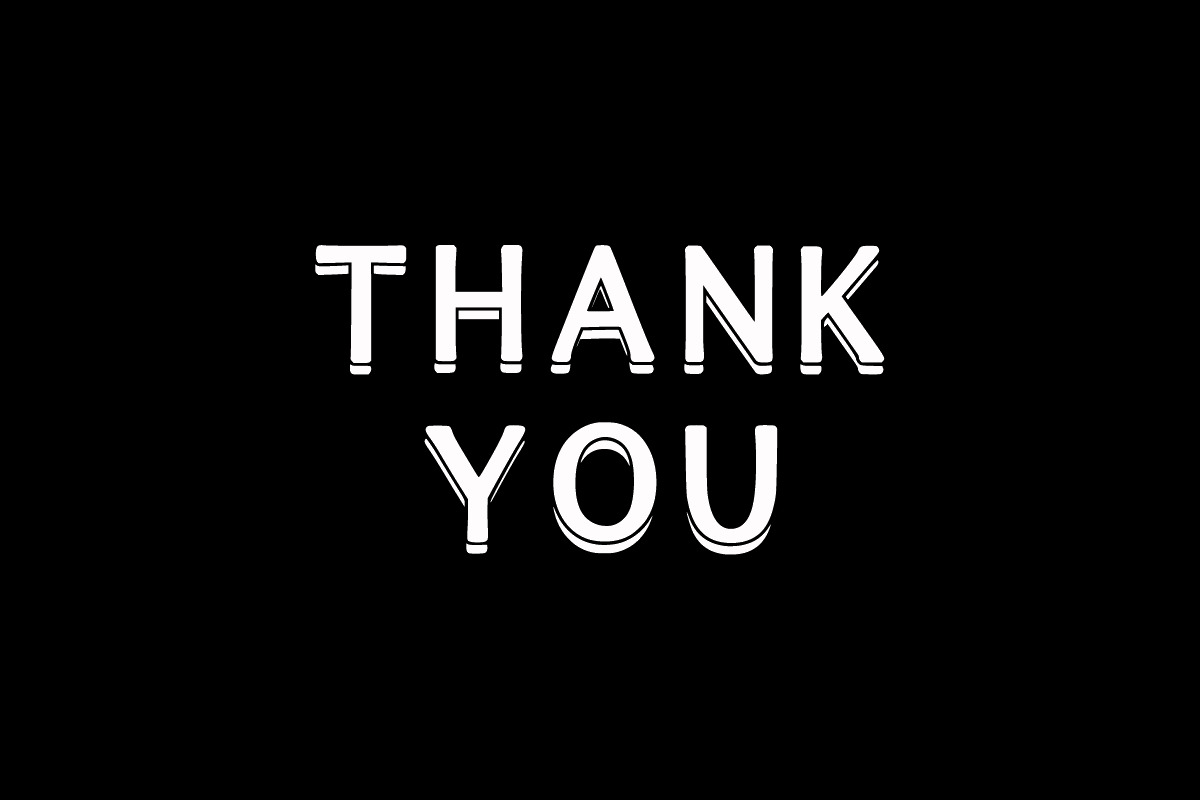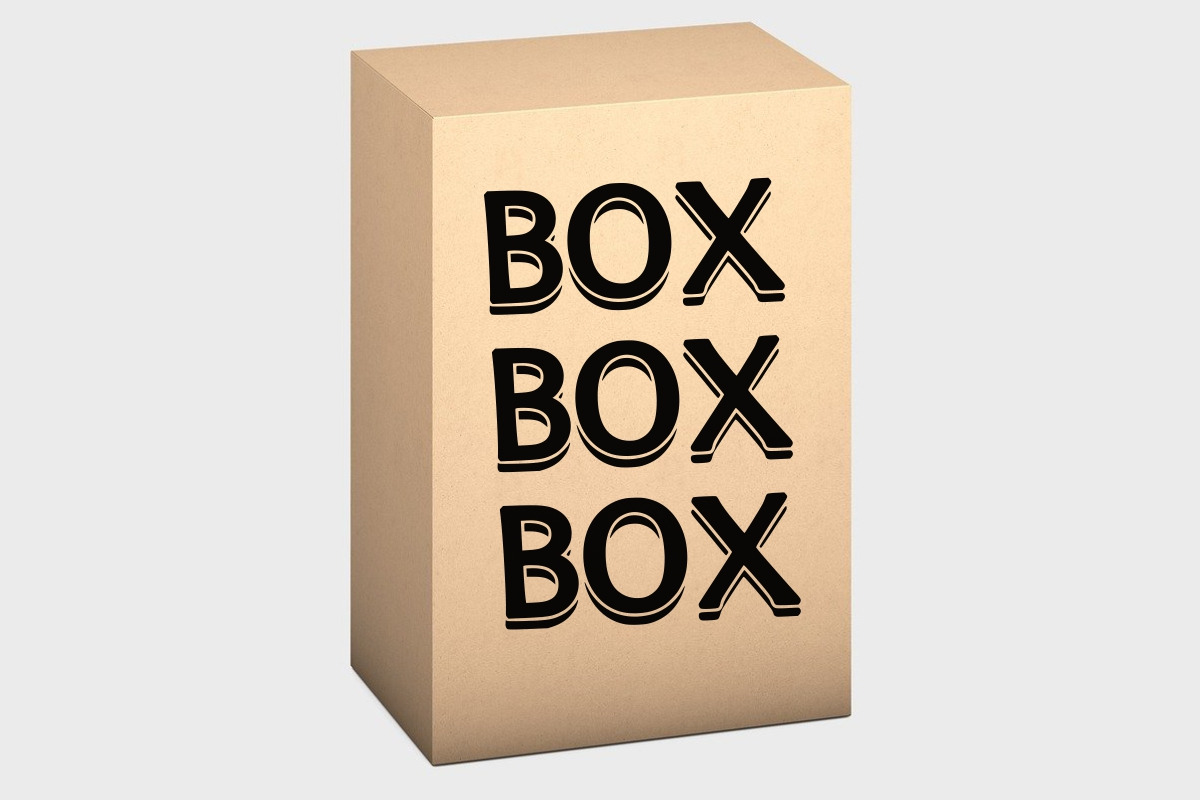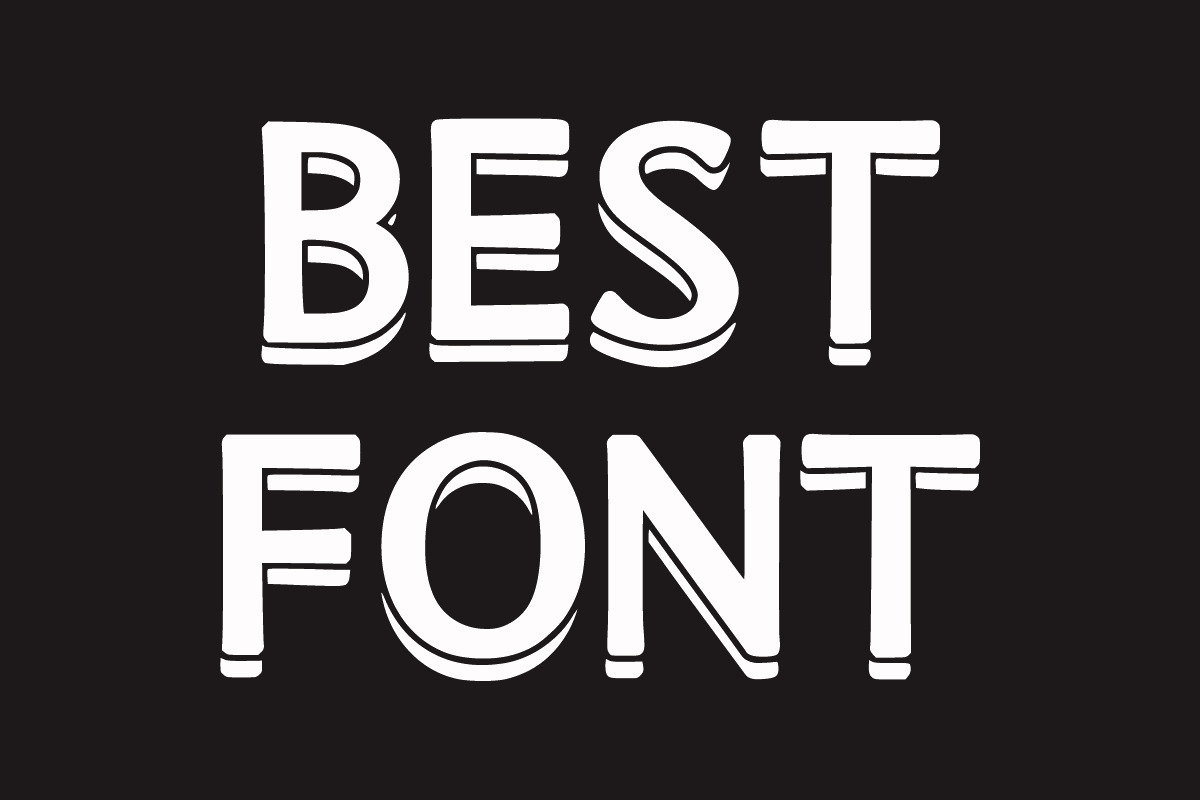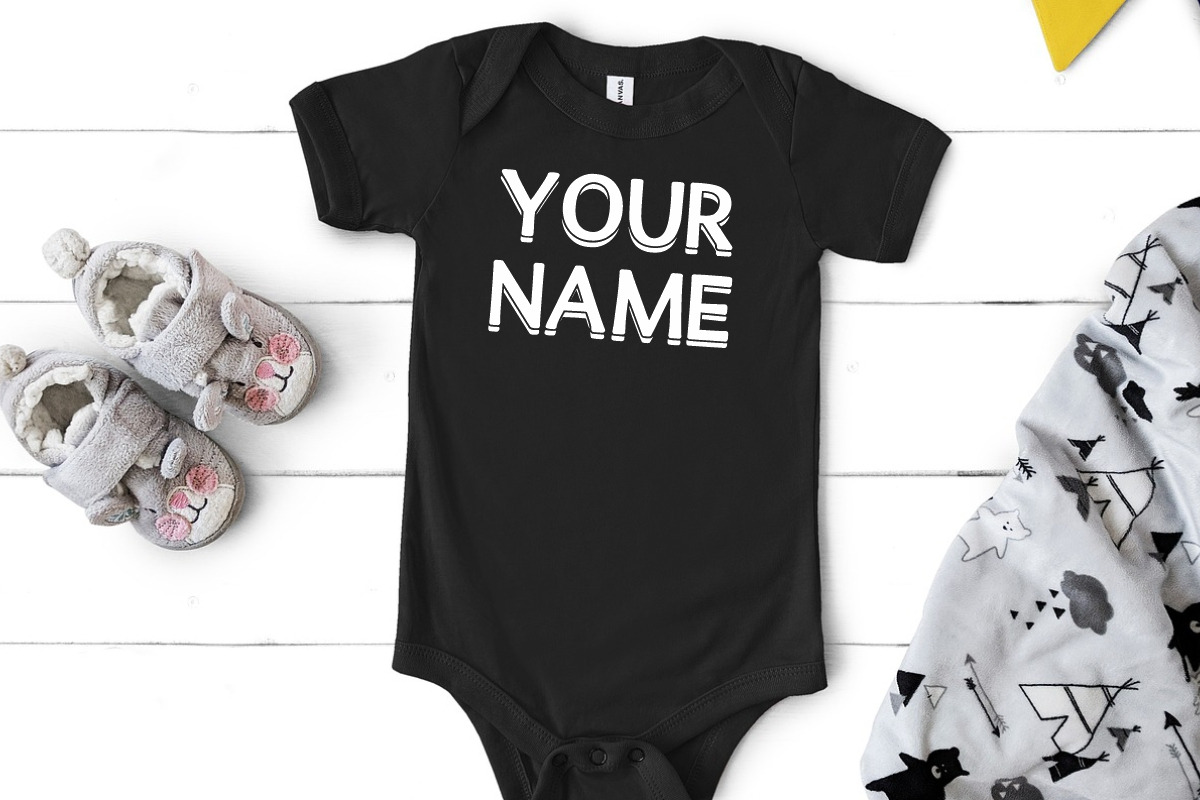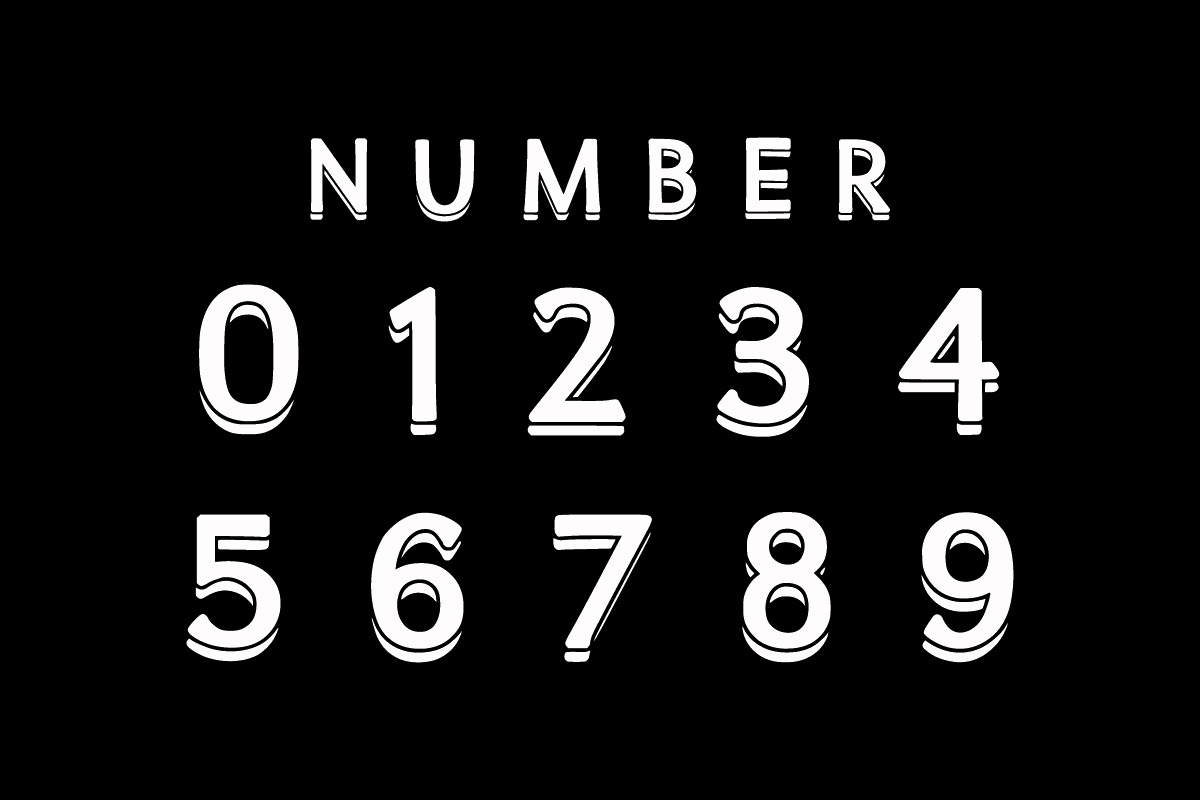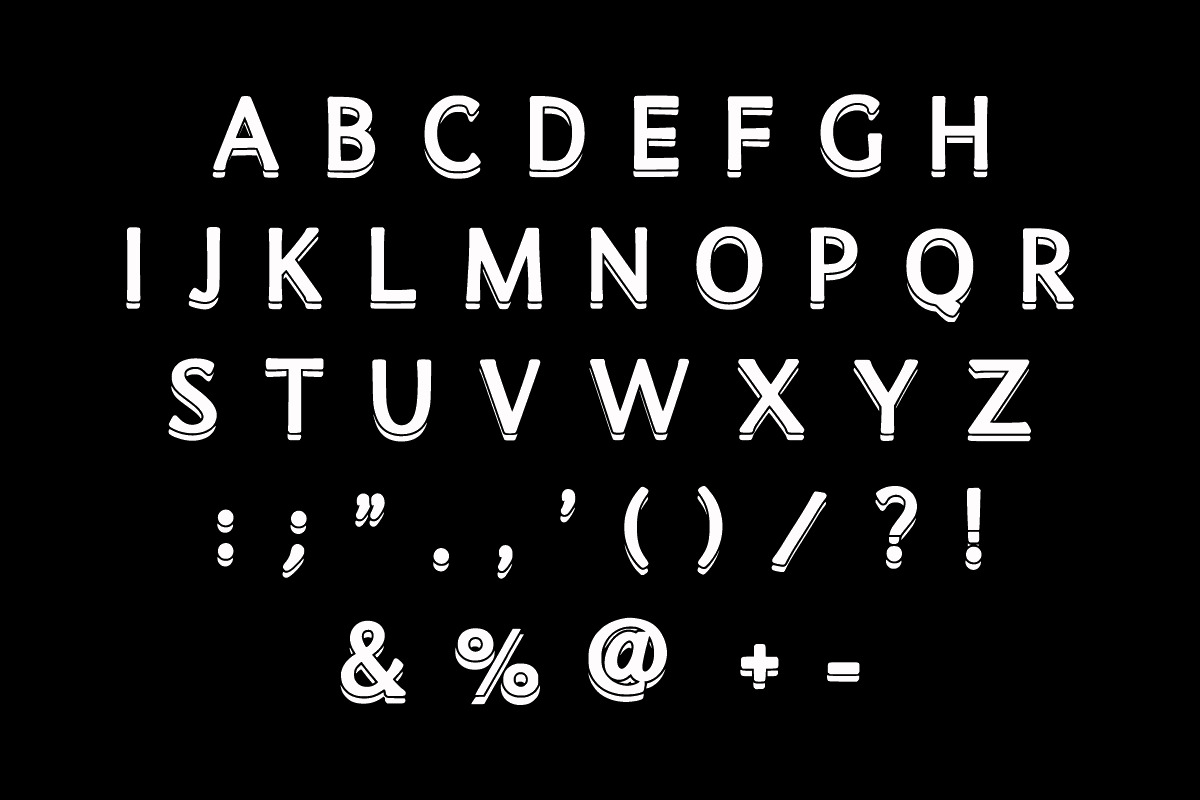
SIMPLE OUTLINE
Simple Outline is an assertive and adaptable sans-serif font. It is easy to read and conveys impeccable friendliness. Whether you’re using it for crafts, digital design, presentations, or making greeting cards, this font has the potential to become your favorite go-to font.